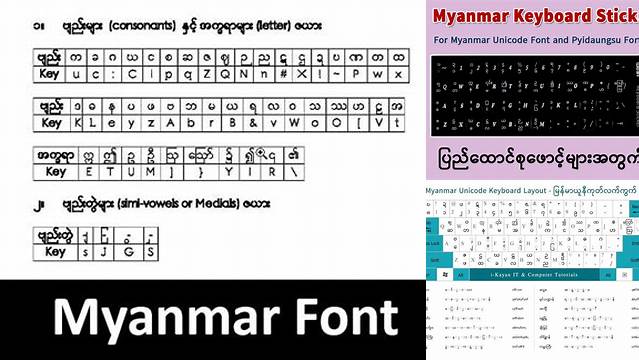
1. Understanding Myanmar Fonts for Windows 11
Before we jump into the download process, let’s chat a bit about what Myanmar fonts actually are and why they're essential. Myanmar, also known as Burmese, has its own unique script which is beautiful and intricate. If you're working with documents in Burmese or creating content for a Myanmar-speaking audience, having the right font is crucial. It ensures that the text is displayed correctly and is readable, which is super important for clear communication. Plus, a well-chosen font can add a touch of authenticity and professionalism to your work. Think about it – would you want to read a document in a language you understand but written in a font that looks all jumbled up? Probably not! So, let's make sure your Myanmar text looks its best on Windows 11.
8. Choosing the Right Myanmar Font for Your Project
Okay, so you've got tons of Myanmar font options – how do you pick the right one? It really depends on the project you’re working on. If you’re writing a formal document, you’ll want a font that looks professional and is easy to read, like a classic serif font. For more creative projects, like posters or social media graphics, you can go a bit bolder and choose a more decorative font. Think about the overall tone and style of your project. Does it need to be serious and authoritative, or fun and playful? The font you choose should match that vibe. Also, consider readability. A beautiful font is no good if nobody can read it! Test out different fonts and see which ones work best for your specific needs. Happy font-picking!